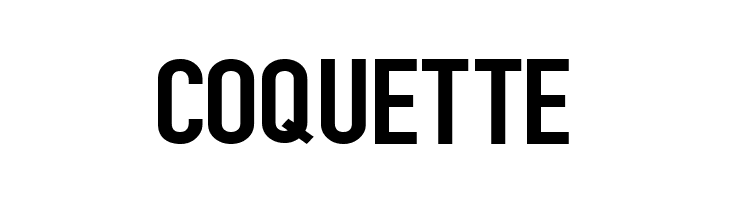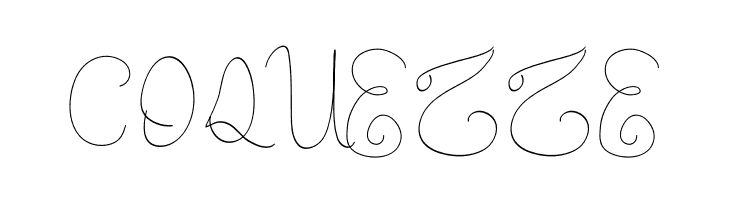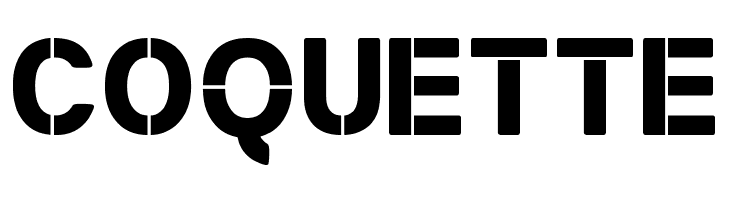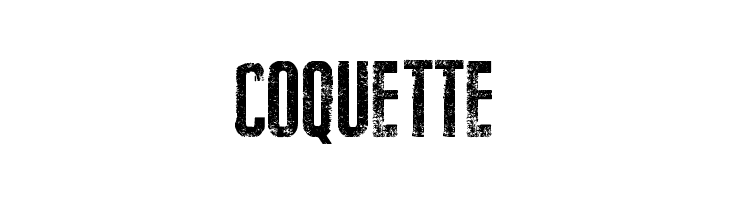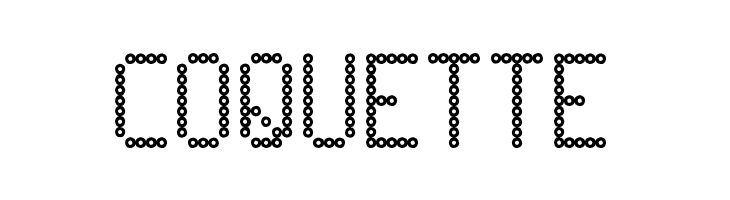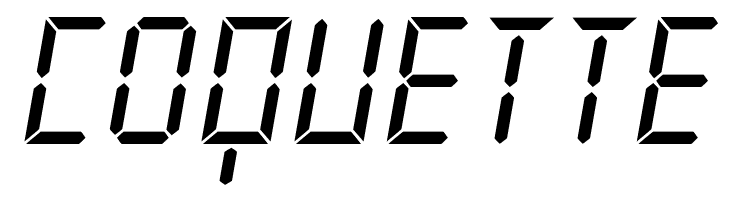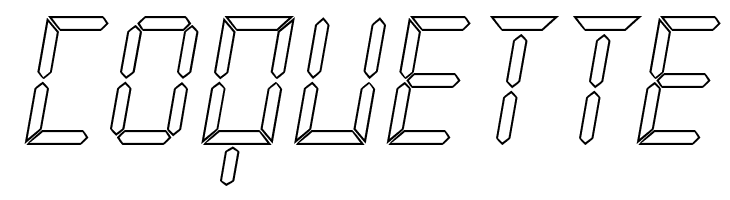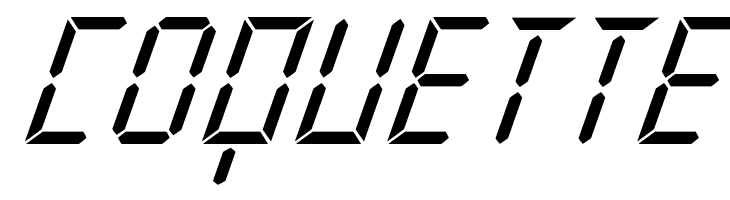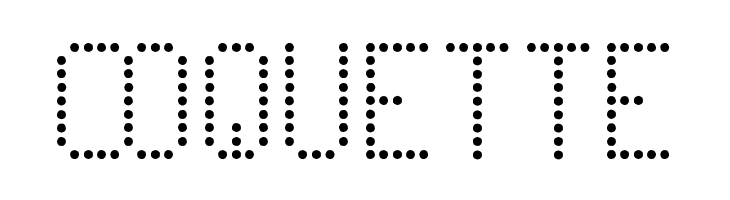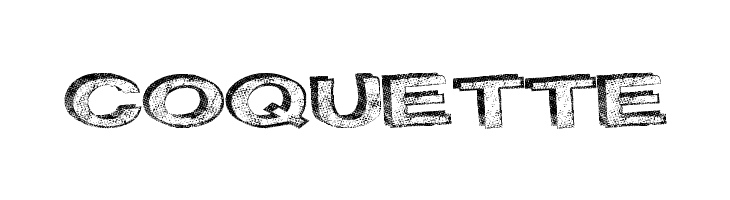
A geometric, futuristic font with blocky, angular letterforms and consistent stroke widths.
A dot matrix style font resembling LED displays, with consistent dot spacing for clarity.
A bold, dynamic font with slanted line patterns for a sense of motion.
A distressed, eroded font with a rugged, vintage appearance.
A bold, italicized font with a distressed, eroded texture and high contrast.
A whimsical, artistic font with flowing, cursive-like strokes.
A whimsical and elegant cursive-style font with delicate loops and flowing strokes.
A bold, stencil-style font with geometric shapes and sharp angles.
A digital, futuristic font with angular, segmented characters.
A futuristic, hollow, segmented font inspired by digital displays.
A modern, digital-inspired italic font with segmented, angular lines.
A digital, segmented font with a futuristic and geometric style.
A bold, outlined font with a modern, decorative style and high contrast.
A dot matrix font with a retro digital display style.
A geometric, layered outline font with a modern, futuristic style.
A bold slab serif font with geometric structure and strong serifs.
A modern slab serif font with strong, block-like serifs and balanced character design.
A bold, textured font with a stippled effect, perfect for eye-catching designs.
A bold, blocky font with a shadow effect, perfect for impactful headlines.
A futuristic, geometric font with a three-dimensional appearance.
A futuristic 3D italic font with a modern and dynamic style.
A bold, futuristic font with geometric and angular shapes.
A modern, geometric, and condensed font with a sleek, futuristic style.
A modern, condensed italic font with a futuristic and dynamic style.
A futuristic and geometric font with clean lines and expanded width.
A futuristic, expanded italic font with smooth curves and sharp angles.
A sleek, modern italic font with a futuristic design.
A futuristic, angular font with geometric shapes and a modern slant.
A modern, geometric outline font with a futuristic aesthetic.
A modern, italicized outline font with a futuristic and geometric design.
A modern, geometric font with a futuristic and sleek design.
A bold, modern font with a strong geometric structure and clean lines.